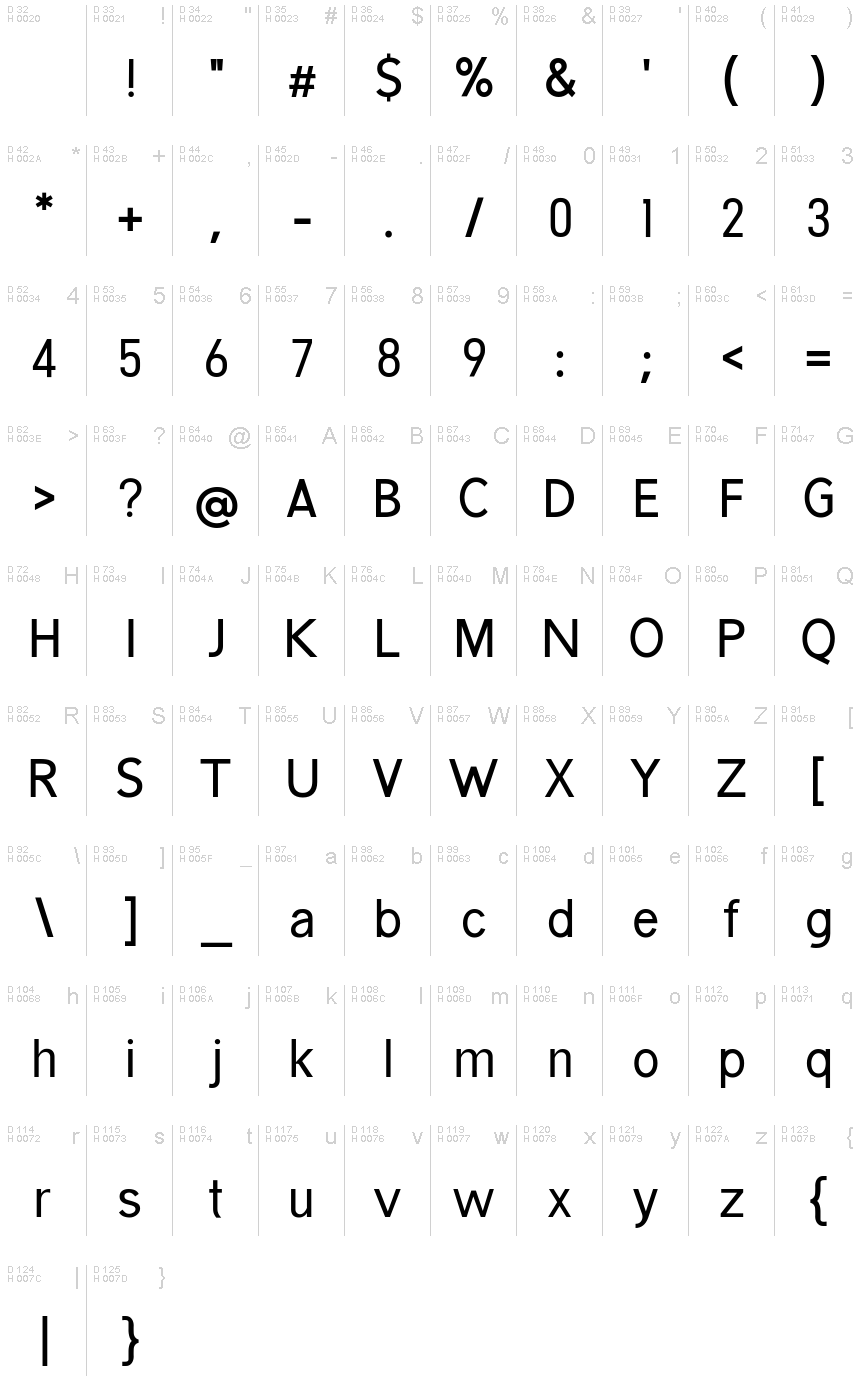
PARACHUTESSANS Regular
Parachutes Sans font, crafted by UI Creative, is a stunning sans serif typeface that seamlessly marries elegance with functionality. Its clean lines and modern aesthetic make it an ideal choice for contemporary design projects. The font's clarity and distinctive character enhance readability, making it perfect for headlines, branding, or minimalistic layouts.
Bold yet unassuming, Parachutes Sans maximizes visual impact without sacrificing sophistication. This free font download suits diverse applications-from editorial work to digital media and beyond-offering versatile use across various platforms.
Whether you’re designing cutting-edge presentations or eye-catching posters, Parachutes Sans delivers both style and substance. Experience the fusion of art and practicality with this remarkable typeface today.